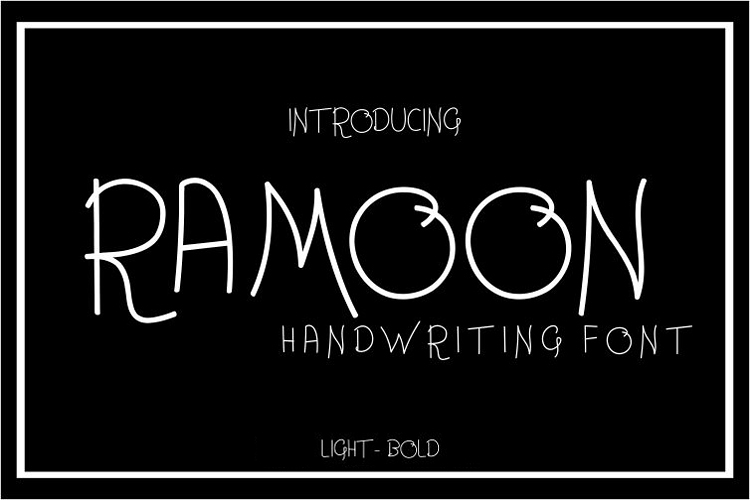
Ramoon
Remoon
Ramoon font is a unique, cool and modern handwritten font. and original font It's the look style makes it perfect for all your design projects, be it logos, signatures, labels, packaging designs, blog headlines.
and there are 2 different font types, light, bold
and also supports many languages equipped with various ligature
Ramoon Light
Ramoon Bold